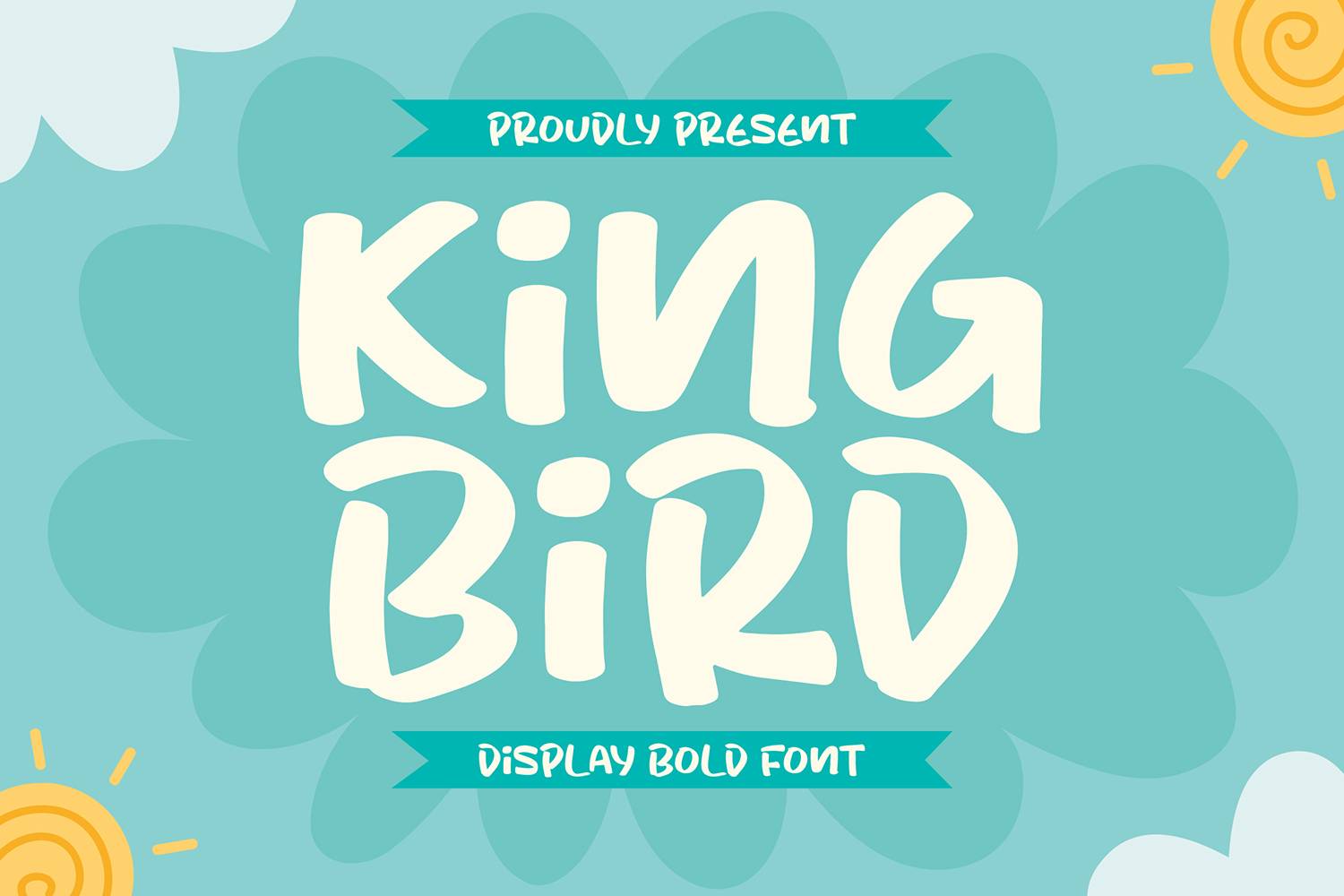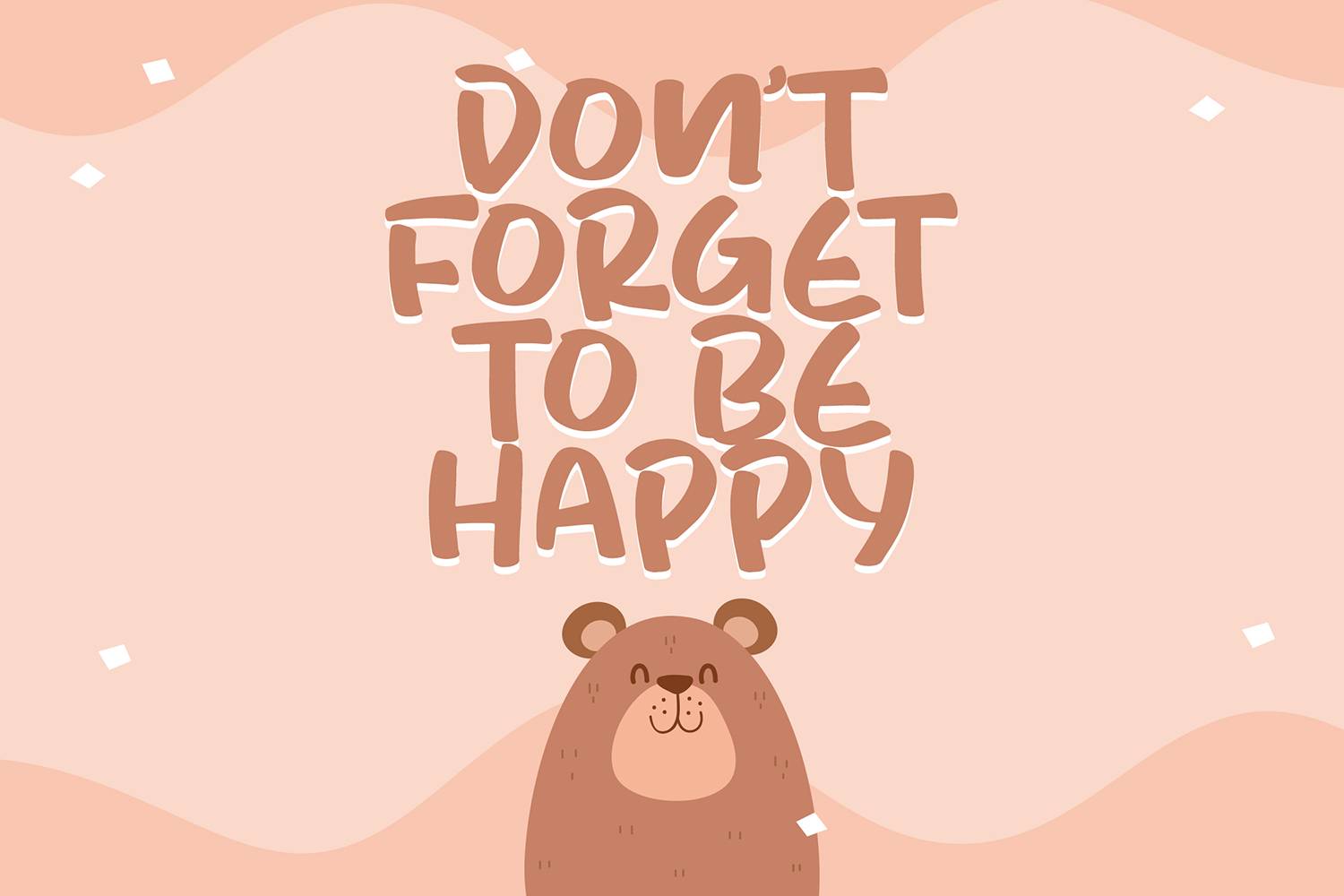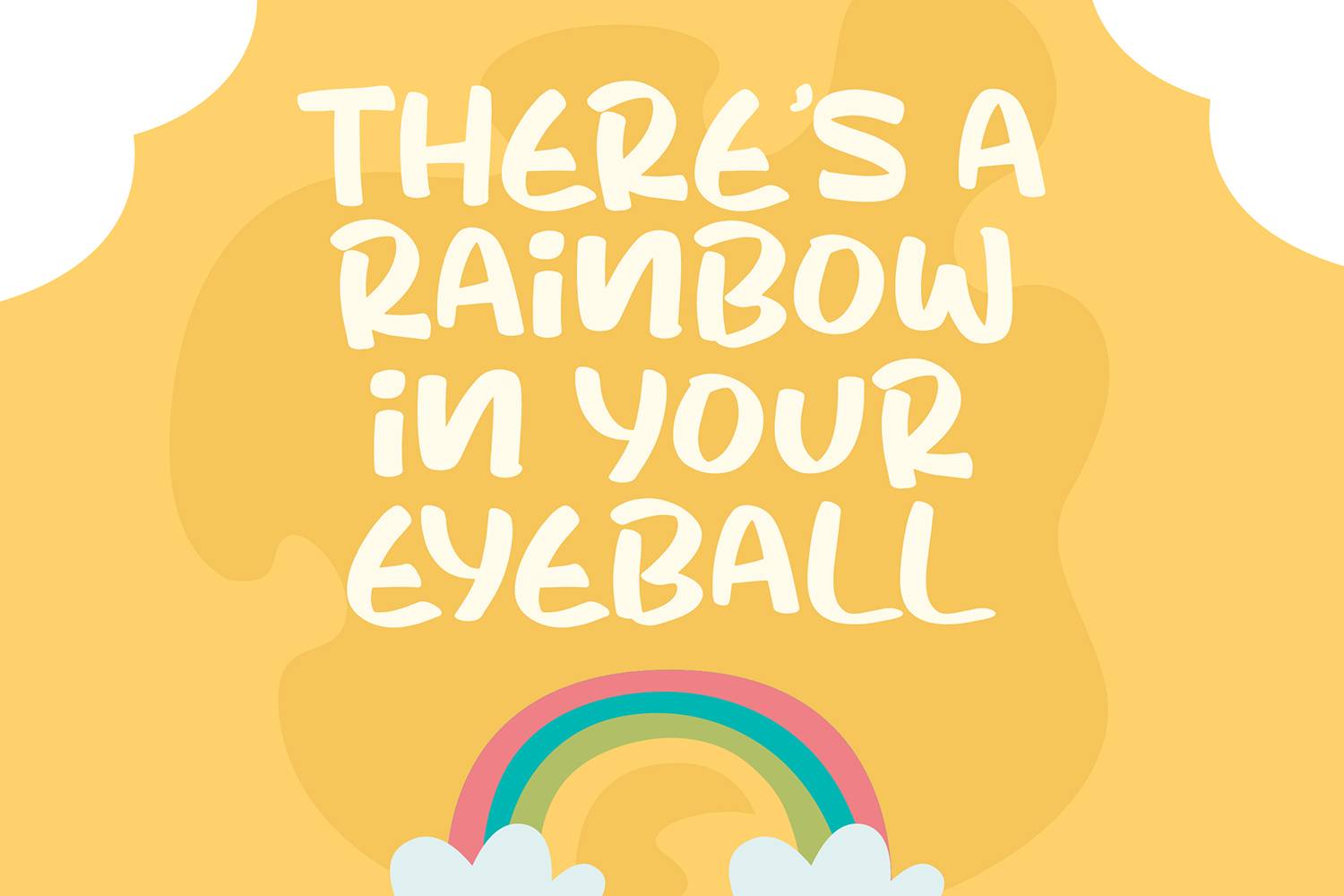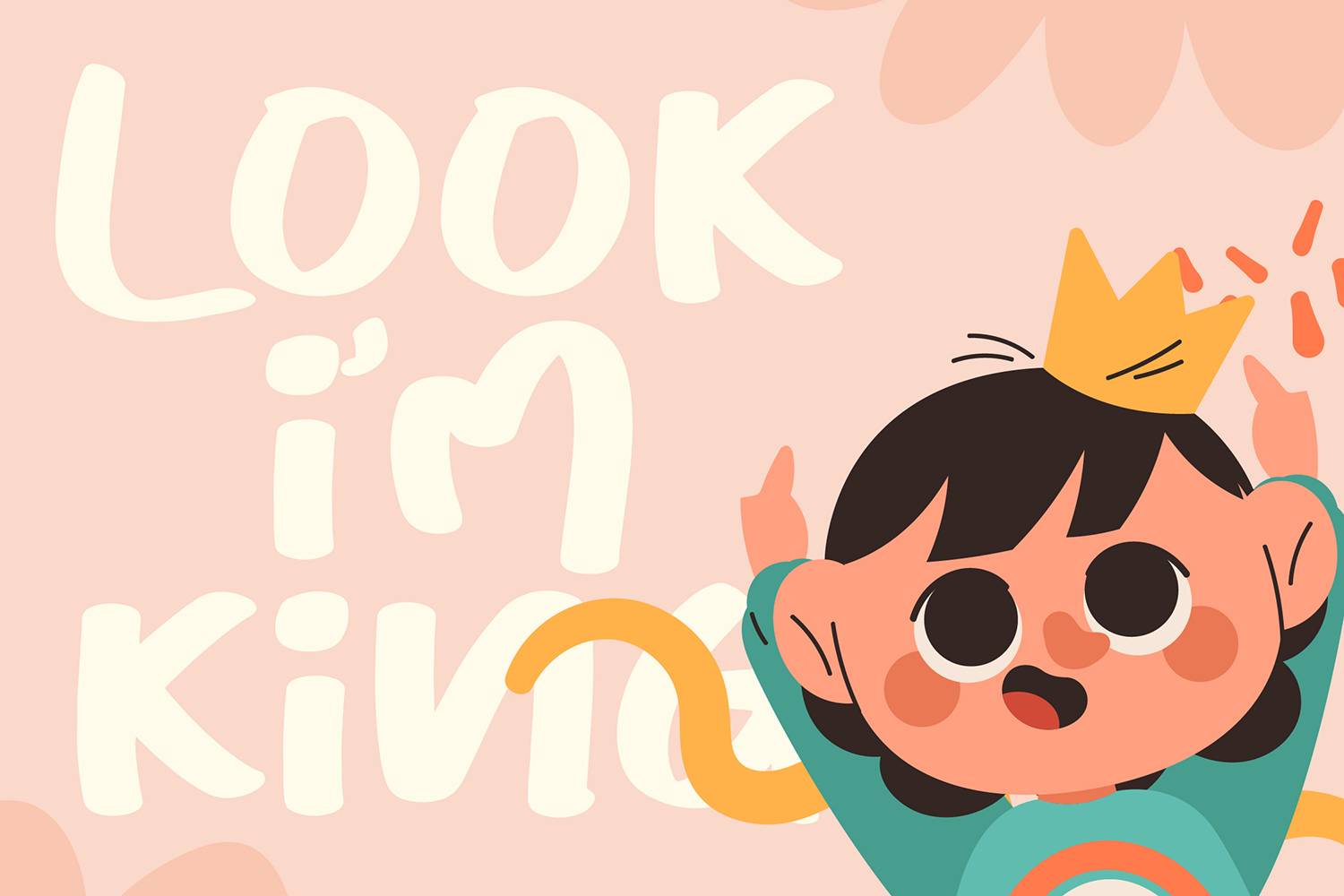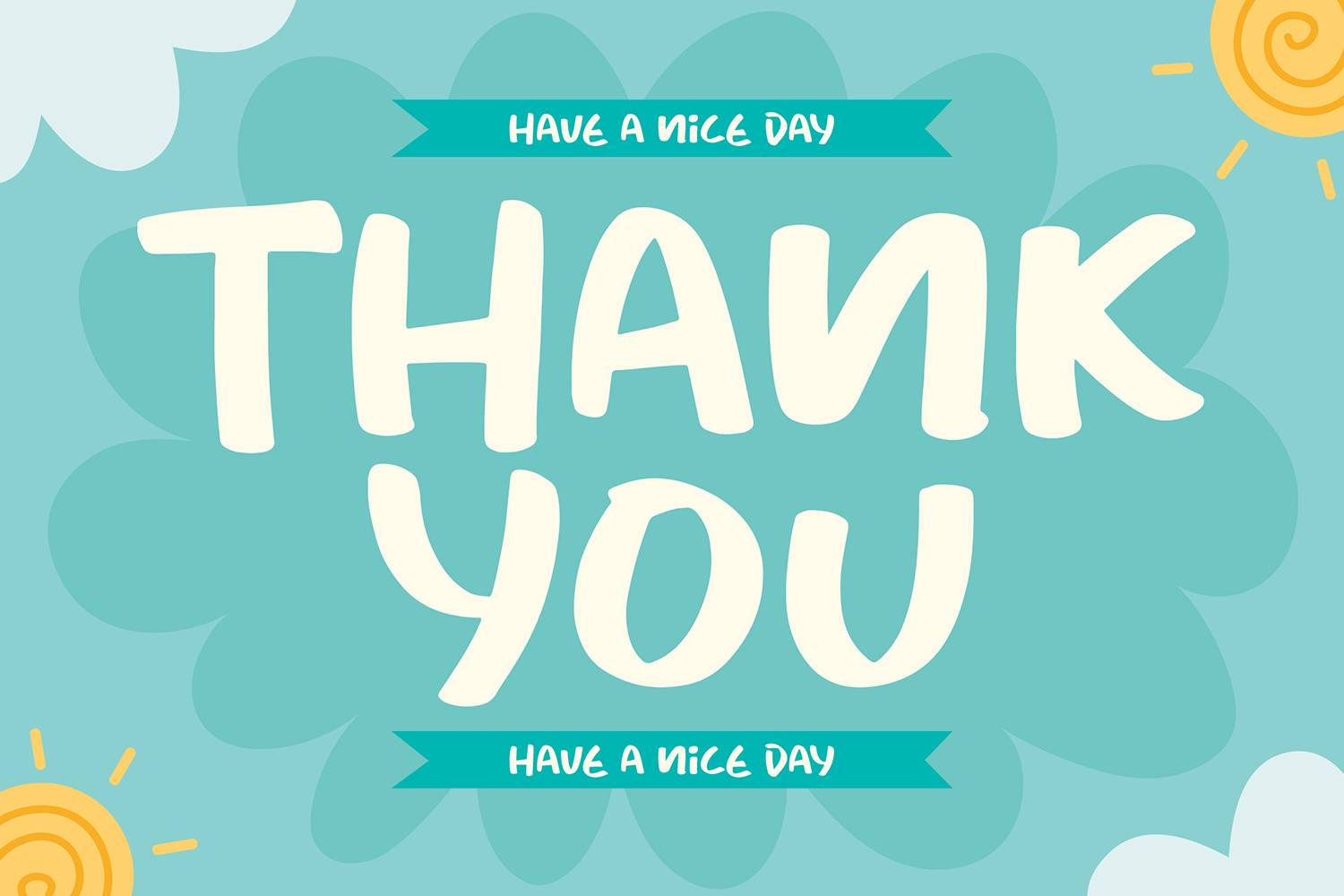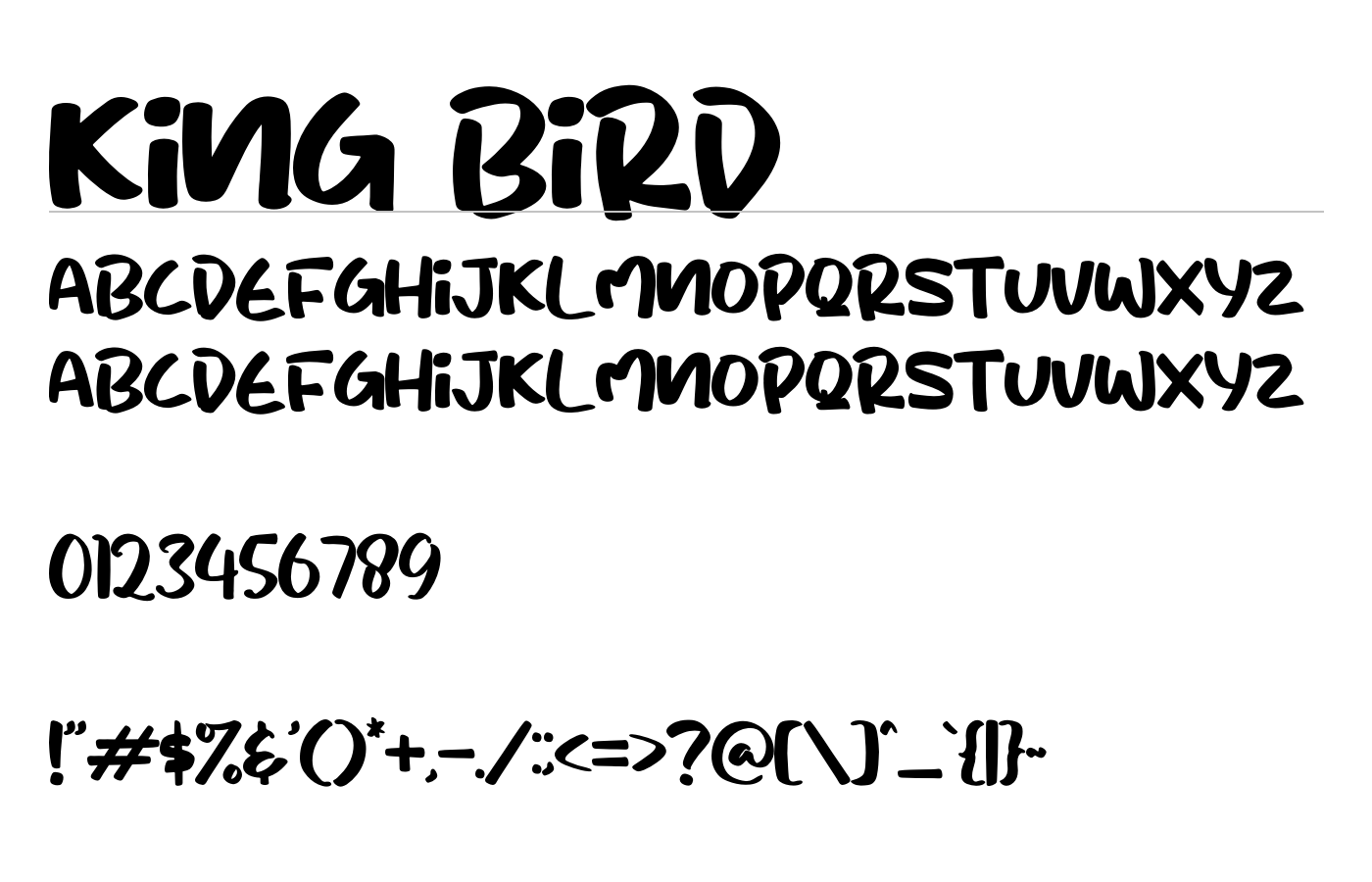
King Bird is a bold, playful handwritten font with a casual and friendly vibe. Its rounded, irregular letterforms and strong weight make it perfect for energetic, informal designs like logos, posters, and packaging that want to convey creativity and approachability. This font works well in display settings where a fun, dynamic personality is needed to catch attention and add warmth.
King Bird Font
About King Bird Font